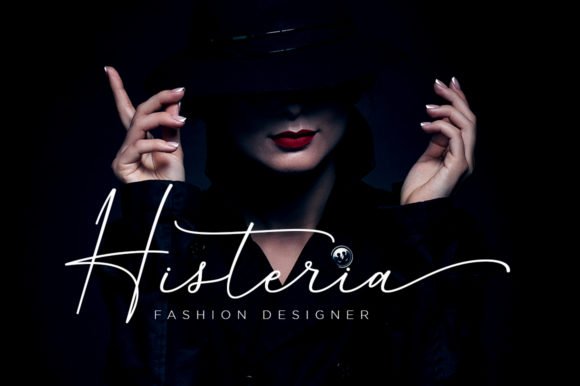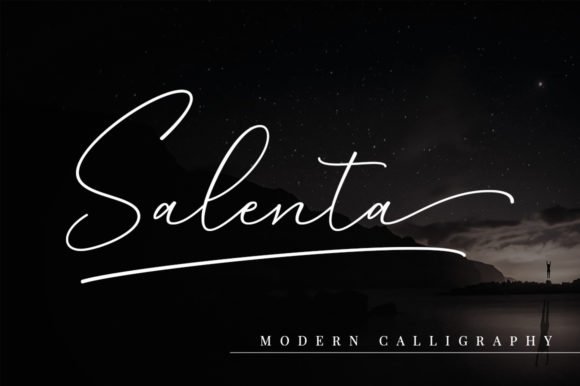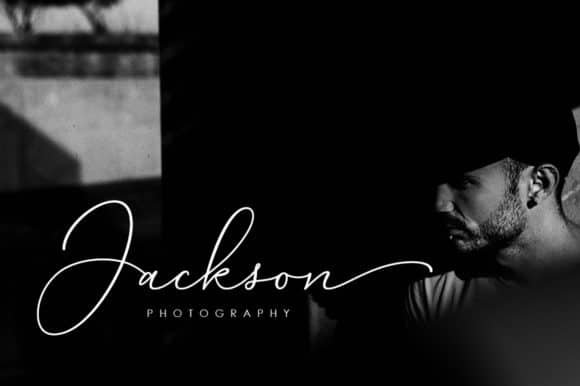
Salenta Font is a new beautiful calligraphy font, casual, pretty and soft, with subtle and charming ink strokes. Salenta is perfect for elegant logos, signatures, high-end packaging, wedding stationery, websites, and any other project that requires a handwritten and luxurious touch.